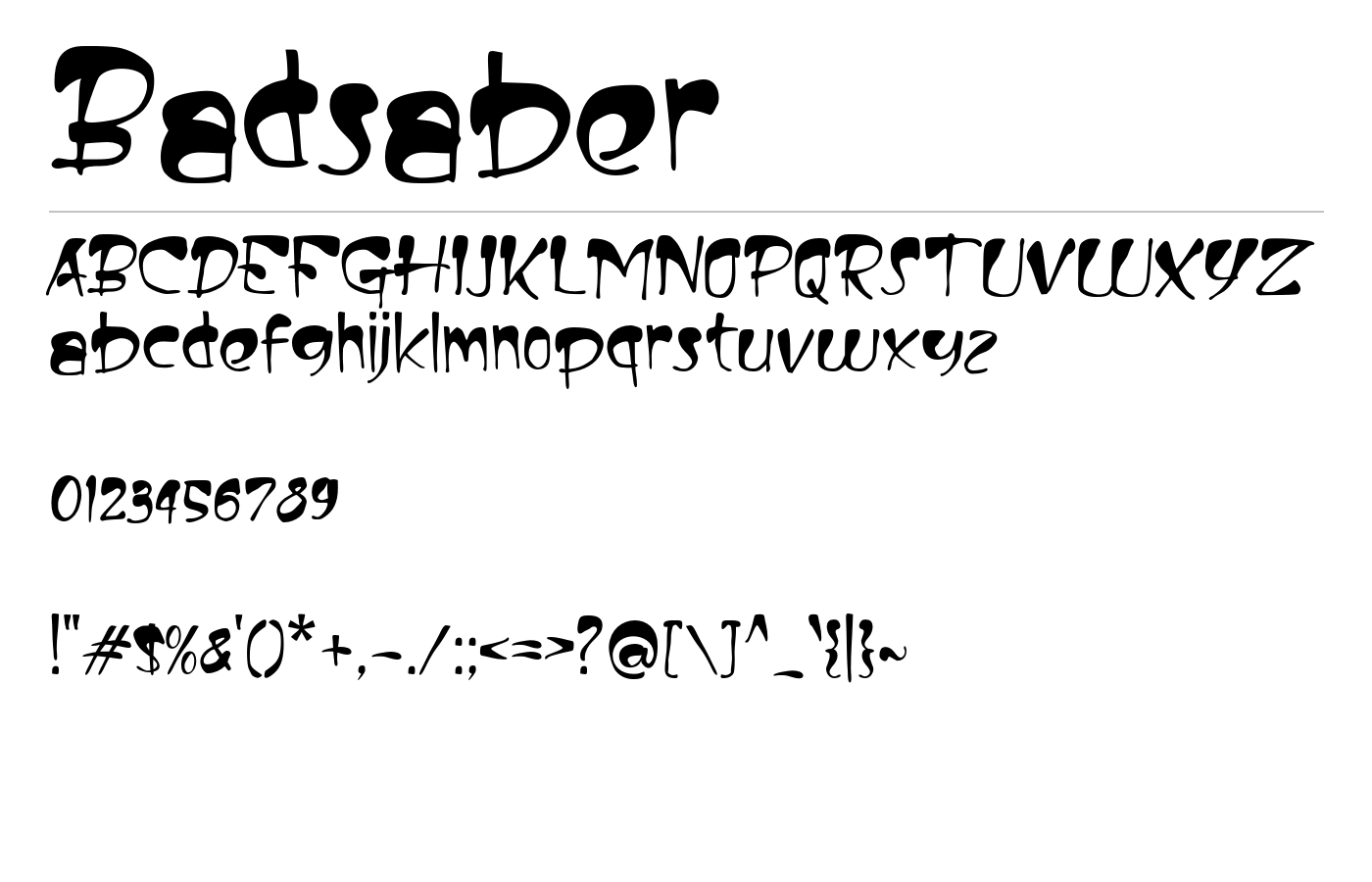
Badsaber is a quirky, playful handwritten font with irregular, bold strokes and unique letter shapes that give it a casual, whimsical feel. Its uneven forms and fun curves make it ideal for creative projects, children’s materials, or any design looking to add a touch of personality and informal charm. This font works best in headlines, posters, or branding that calls for a lively, expressive style.
Badsaber Font